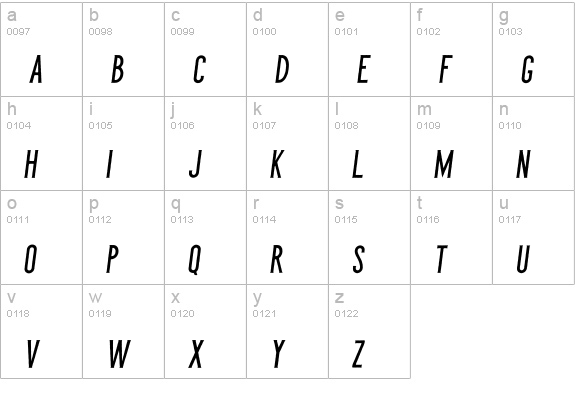
Barberino Rough Italic Regular Font Details
Barberino Rough Italic Regular is the standard, neutral, italic variant in the Barberino typeface family \xE2\x80\x94 well suited to general body text, paragraphs, and standard typographic work.
Barberino Rough Italic Regular font exudes a unique blend of ruggedness and elegance, making it a versatile choice for a wide range of design projects. The rough edges of the italicized characters add a touch of authenticity and character to any text, making it stand out from the crowd. Whether you're working on a vintage-inspired poster, a modern website design, or anything in between, Barberino Rough Italic Regular font is sure to make a statement. And the best part? This stunning font is completely free to download at FontsMarket.com. With just a few clicks, you can add this eye-catching typeface to your collection and start using it in your projects right away. Don't miss out on the opportunity to enhance your designs with Barberino Rough Italic Regular font - download it now and let your creativity soar!